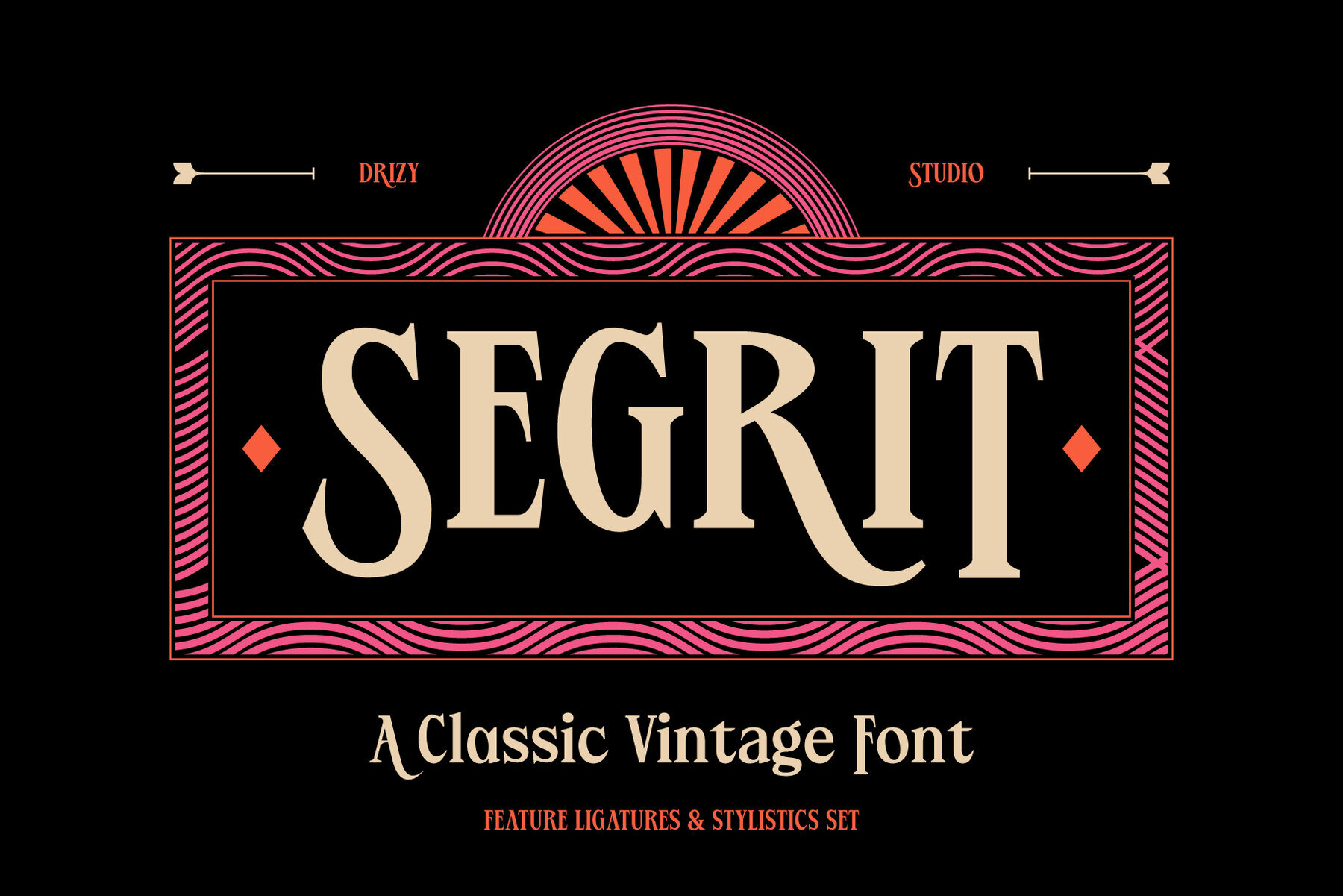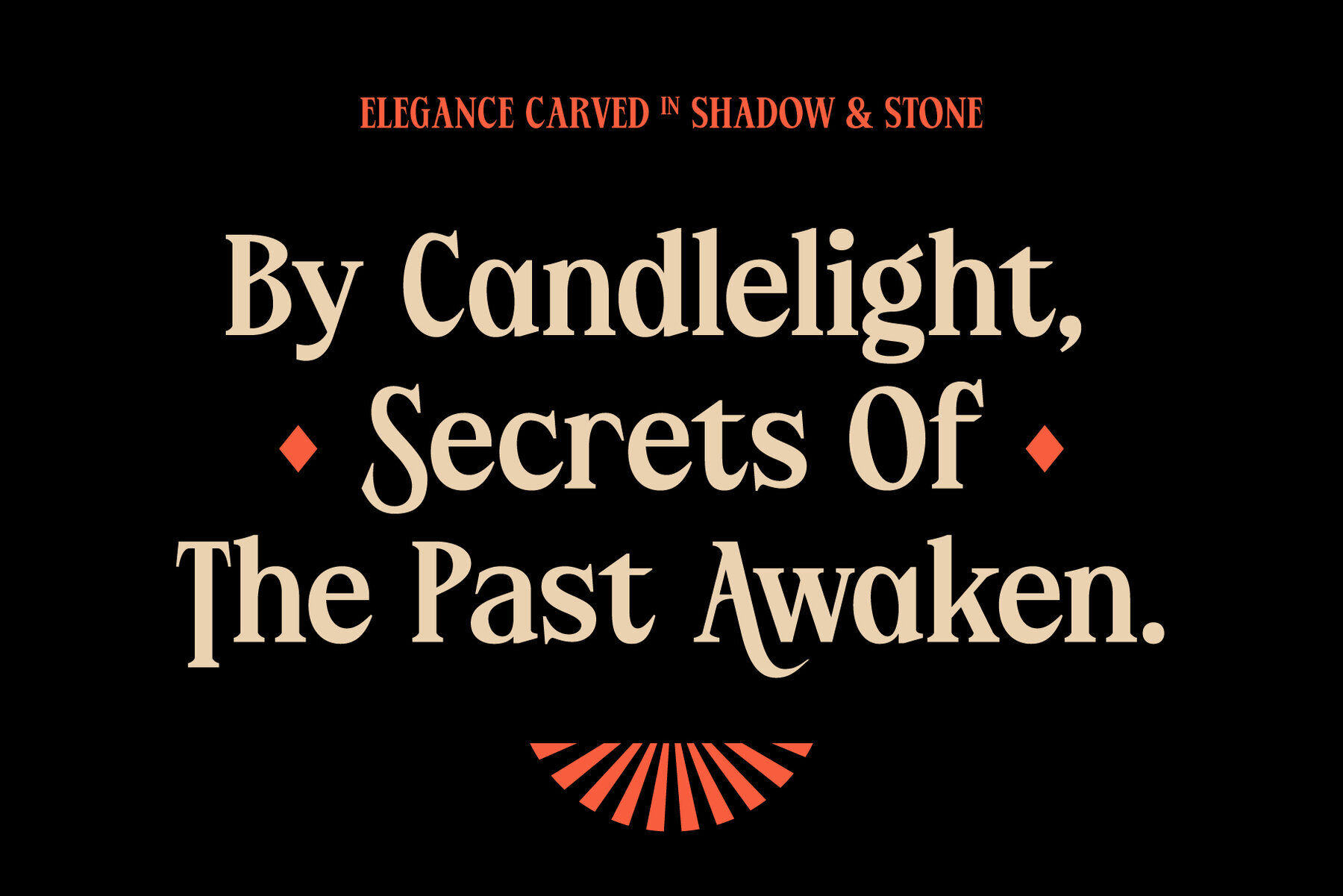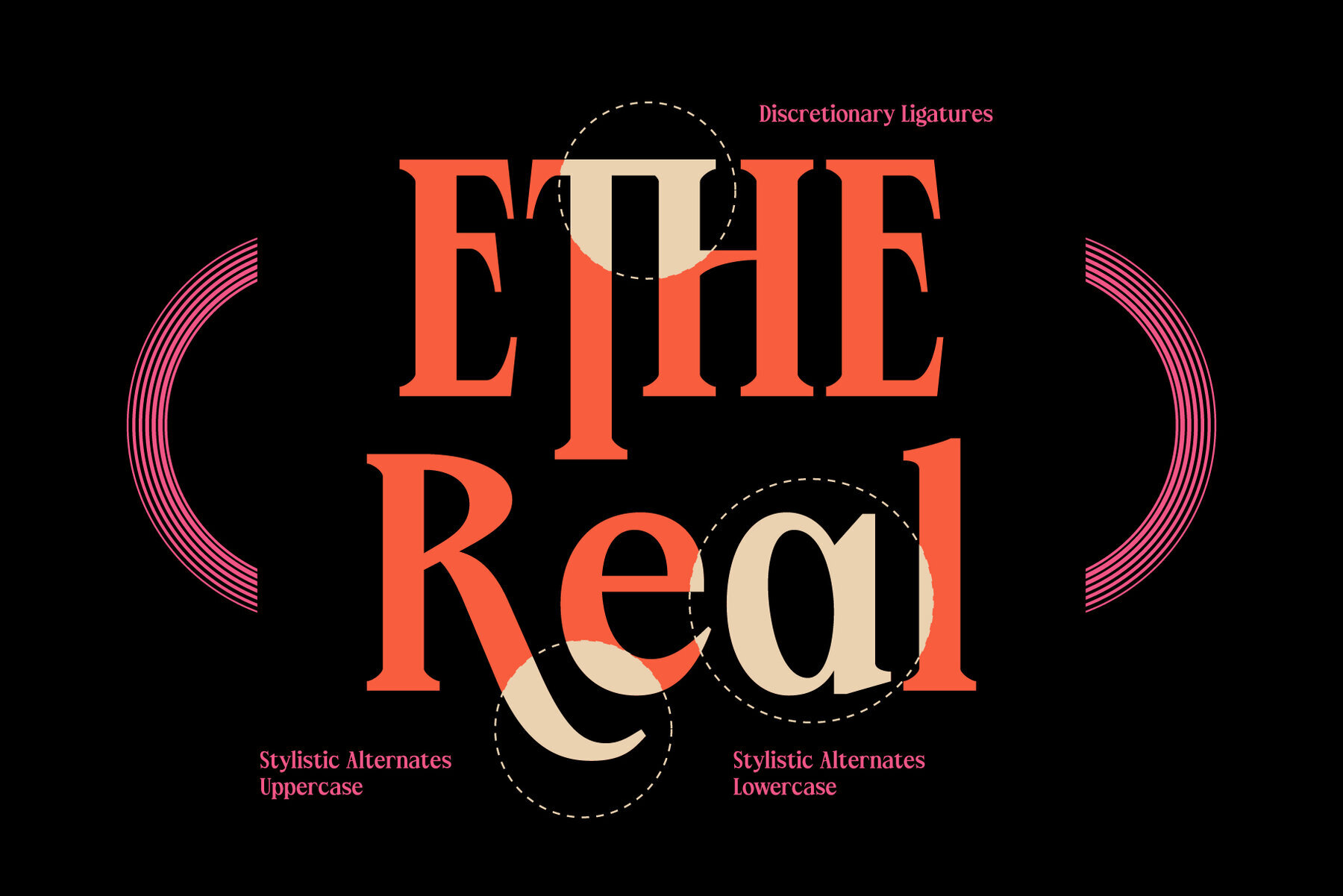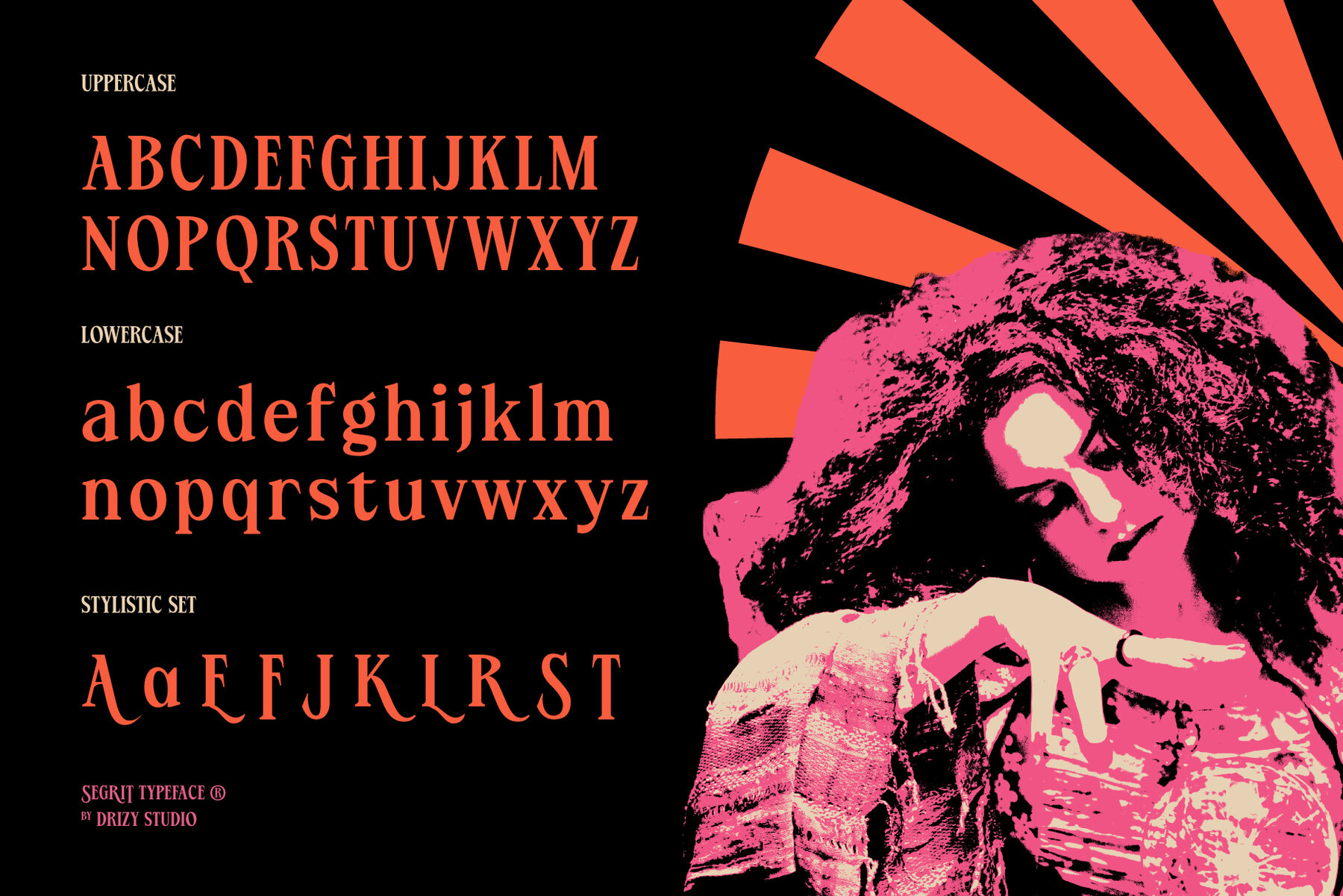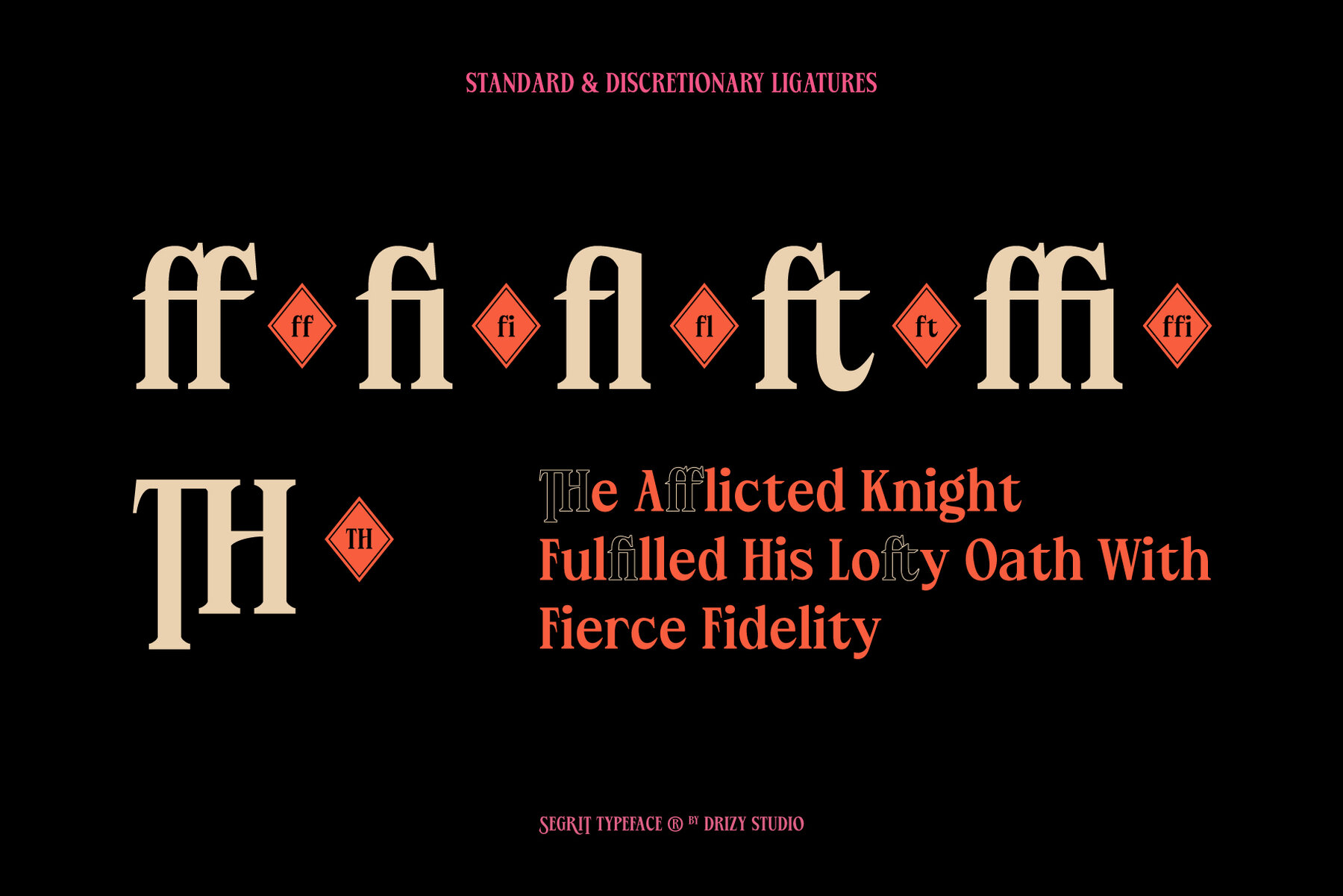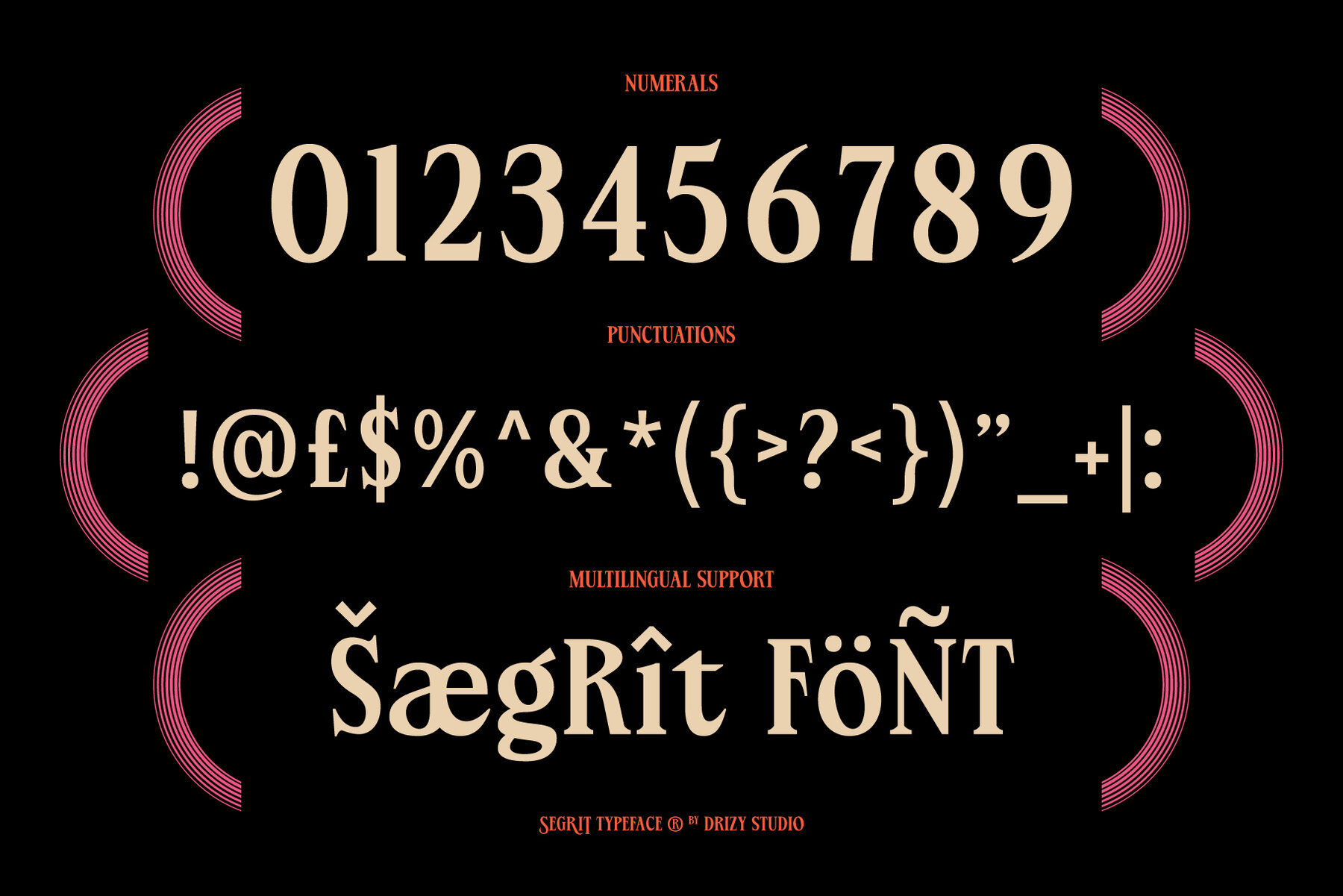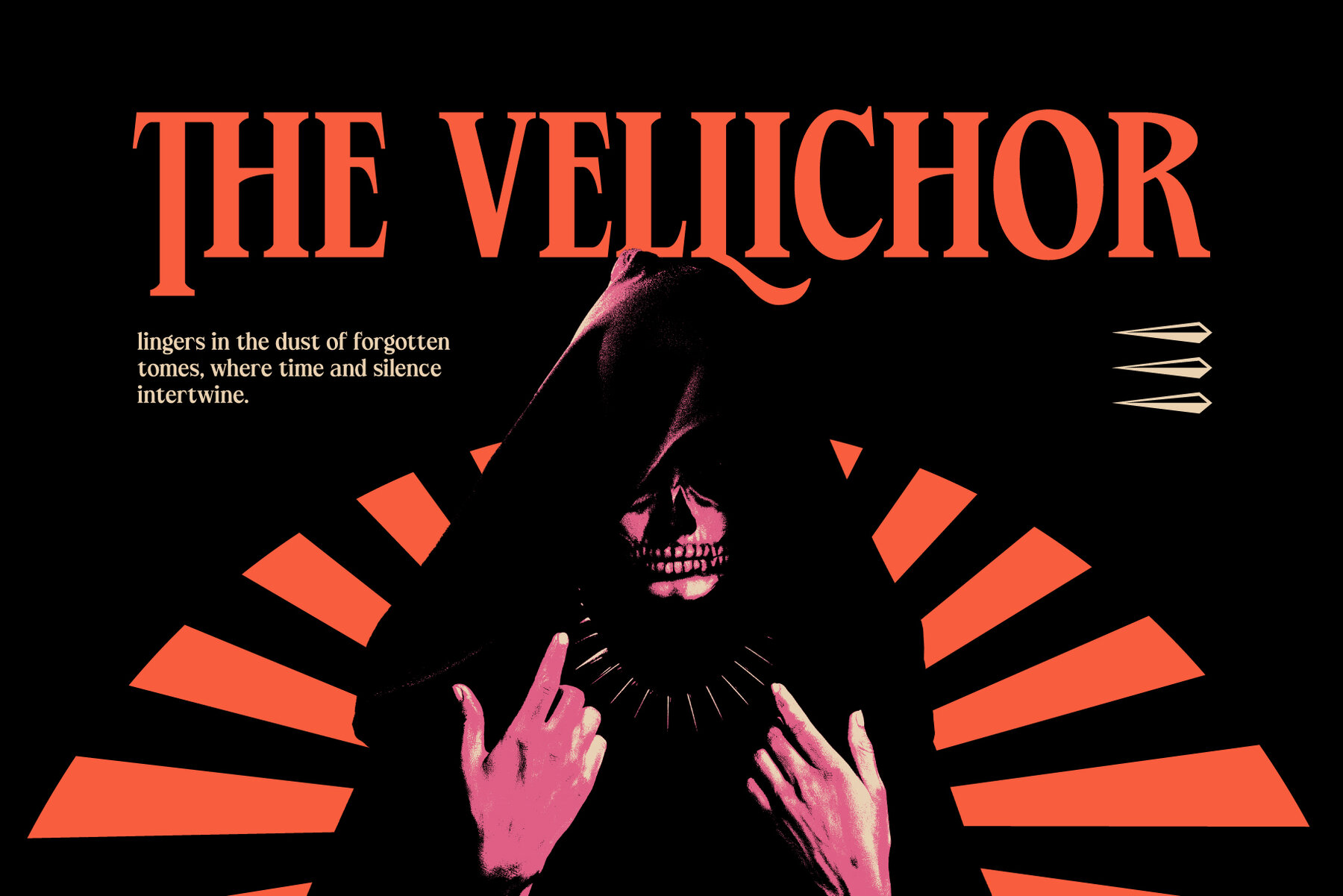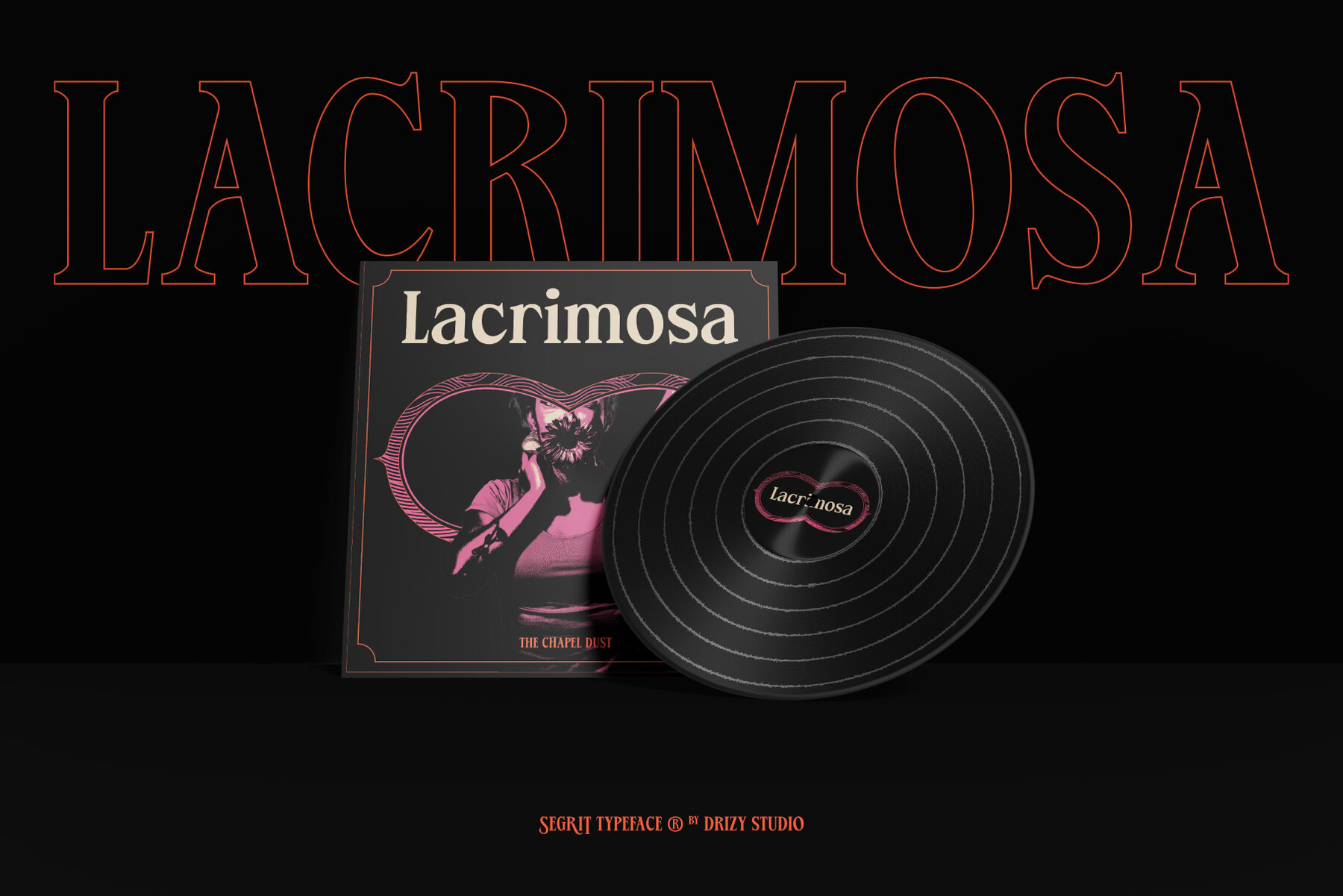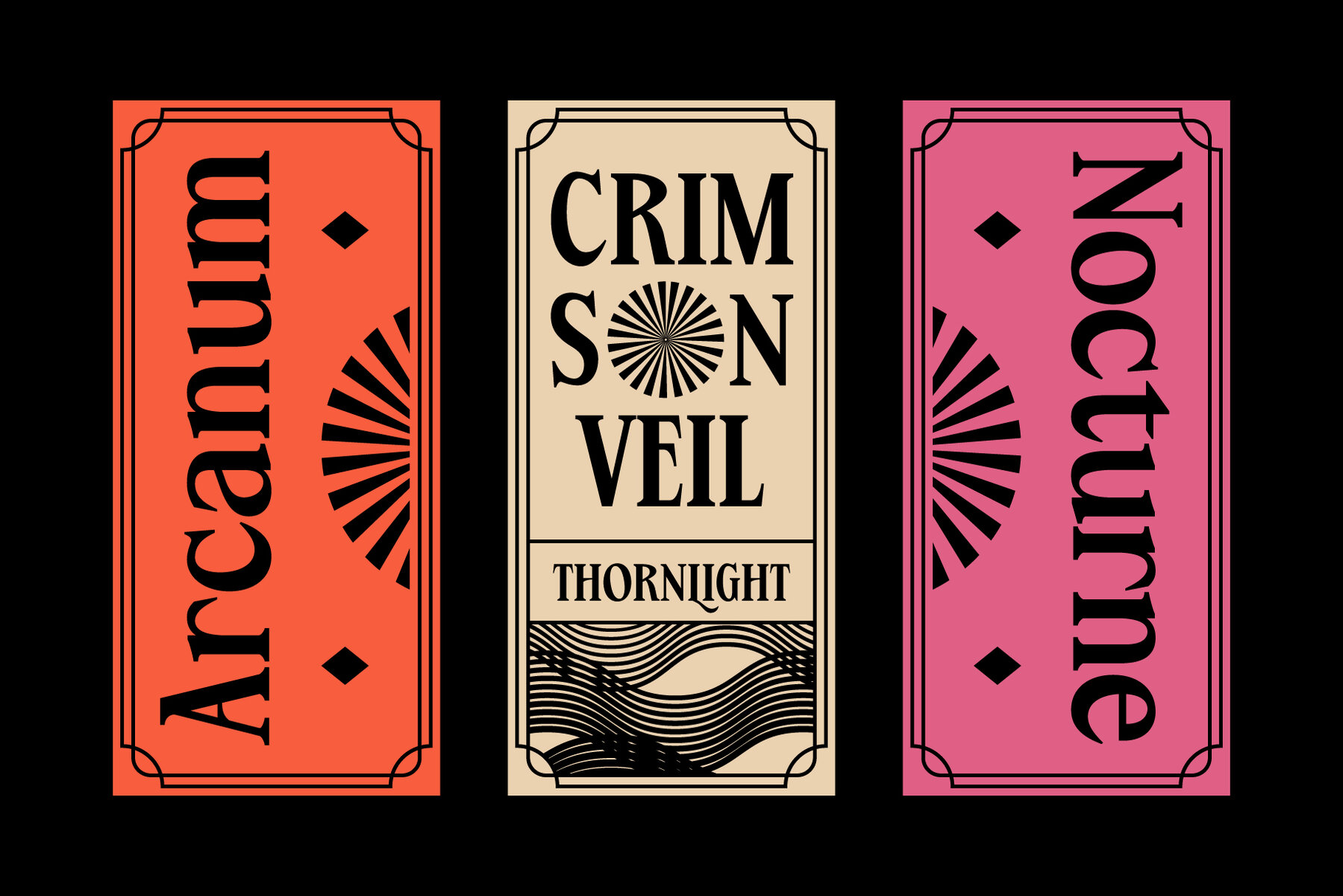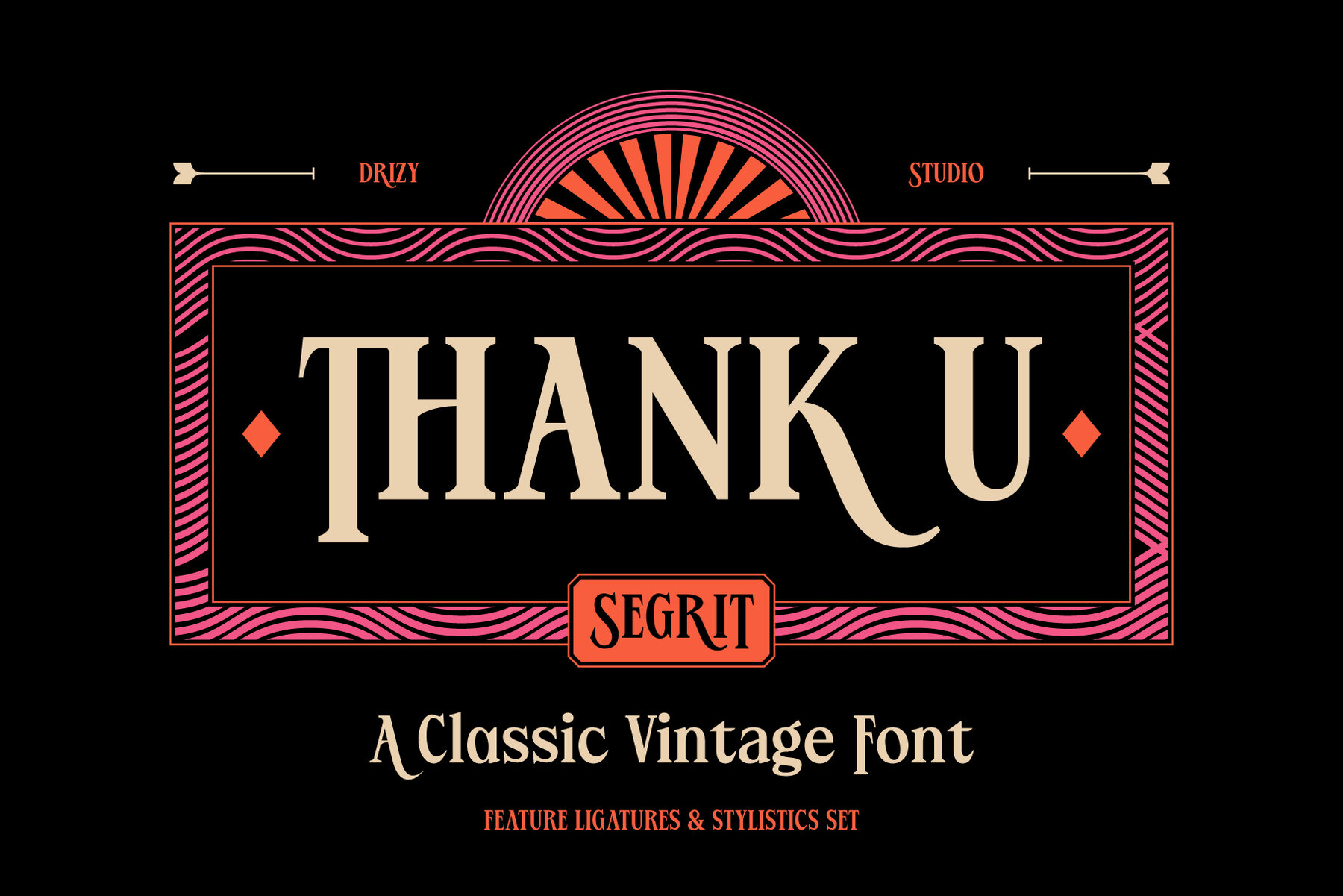
Segrit Font
Segrit Regular
Embrace the eerie elegance of yesteryears with Segrit, a vintage typeface that embodies the haunting allure of classic horror. With its sharp serifs and gothic curves, Segrit recalls the exquisite charm of Victorian posters and early 20th-century horror cinema. Ideal for Halloween branding, ghost stories, and occult merchandise, this font brings a touch of antique sophistication to every project. Let your designs invoke whispers from the shadows. Segrit beckons you to delve into the unknown.Segrit: A Classic Vintage Typeface